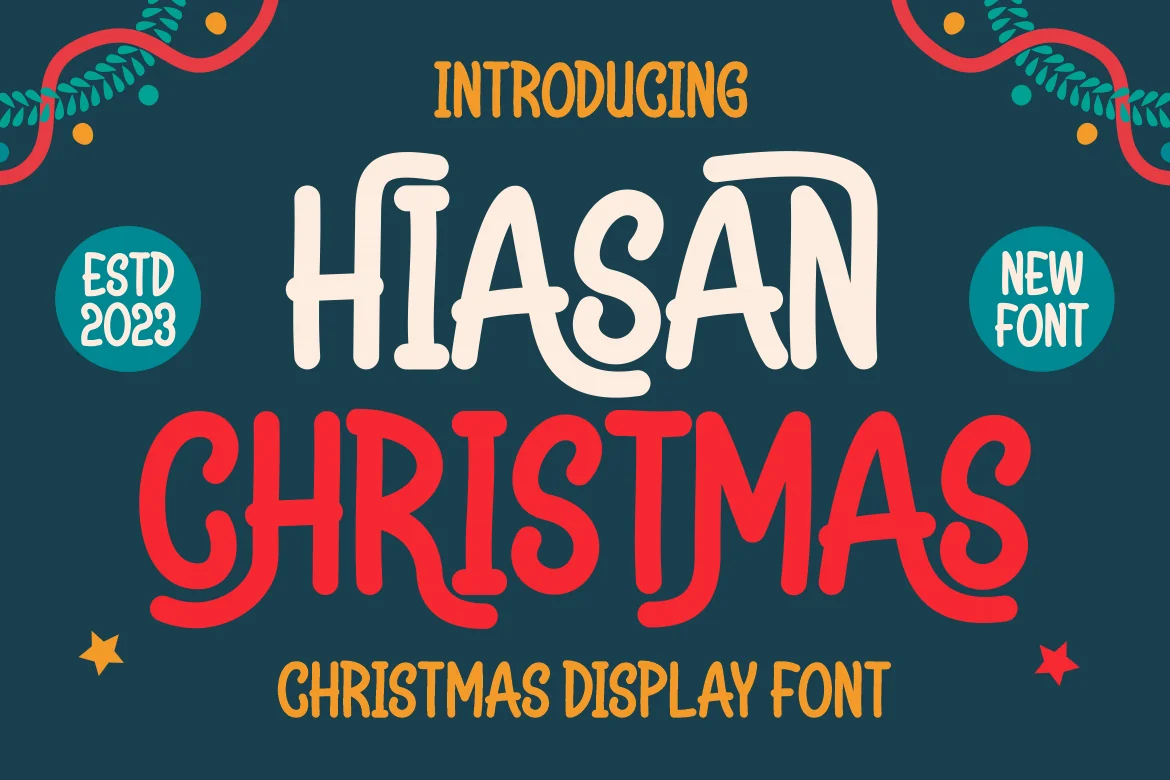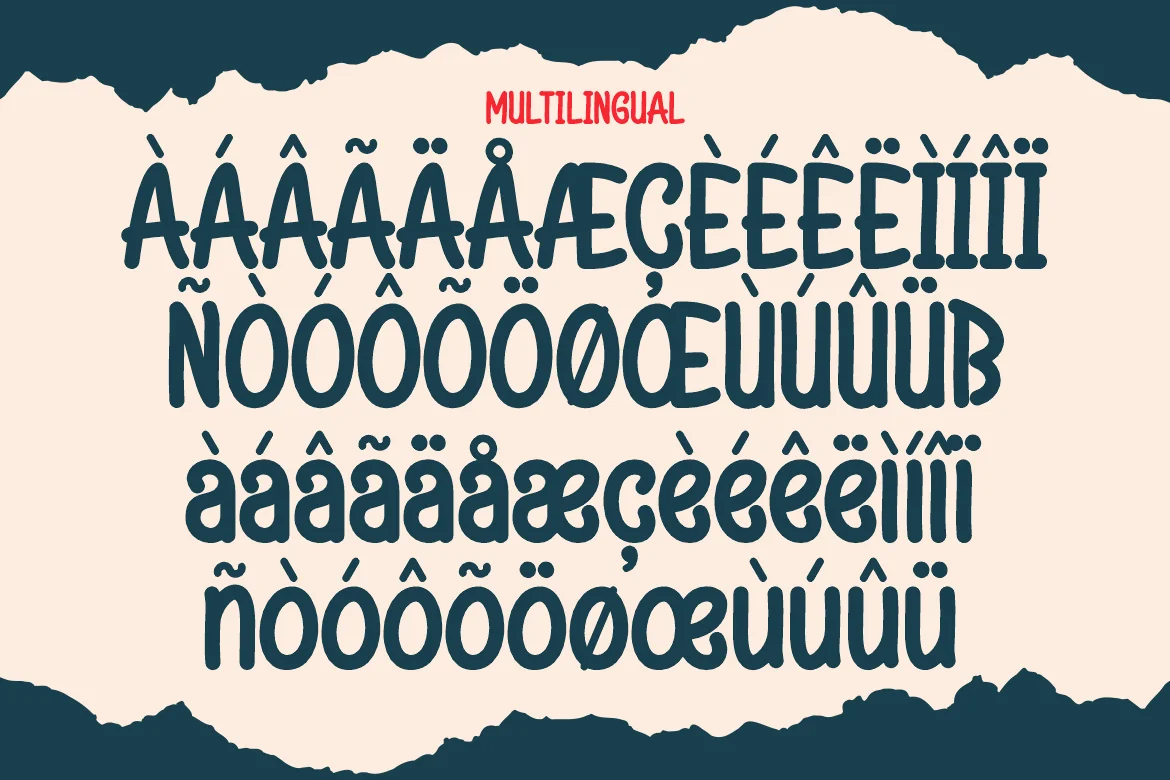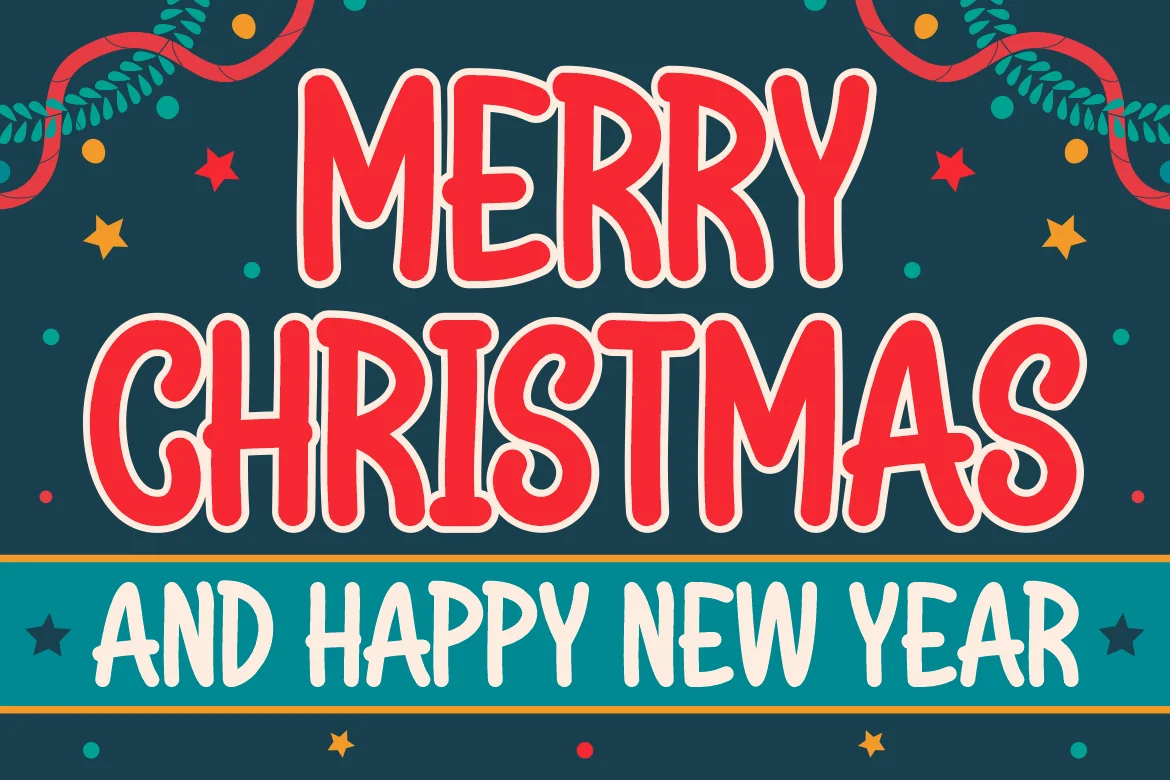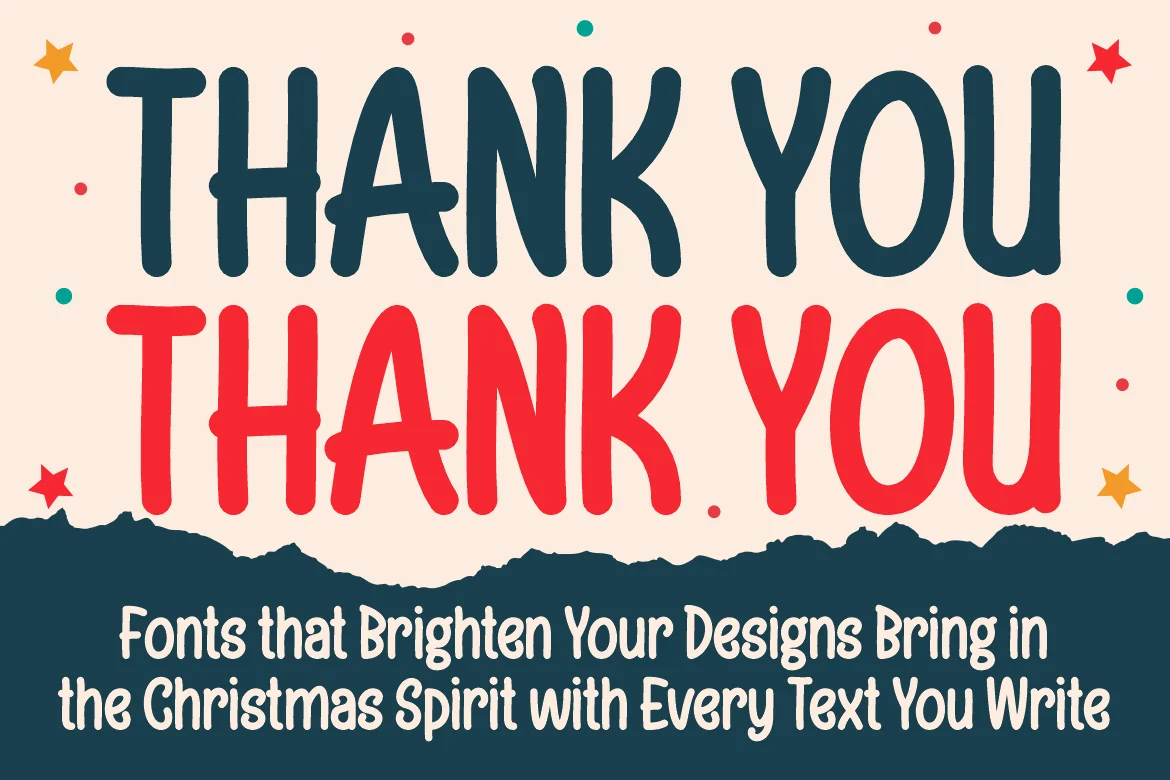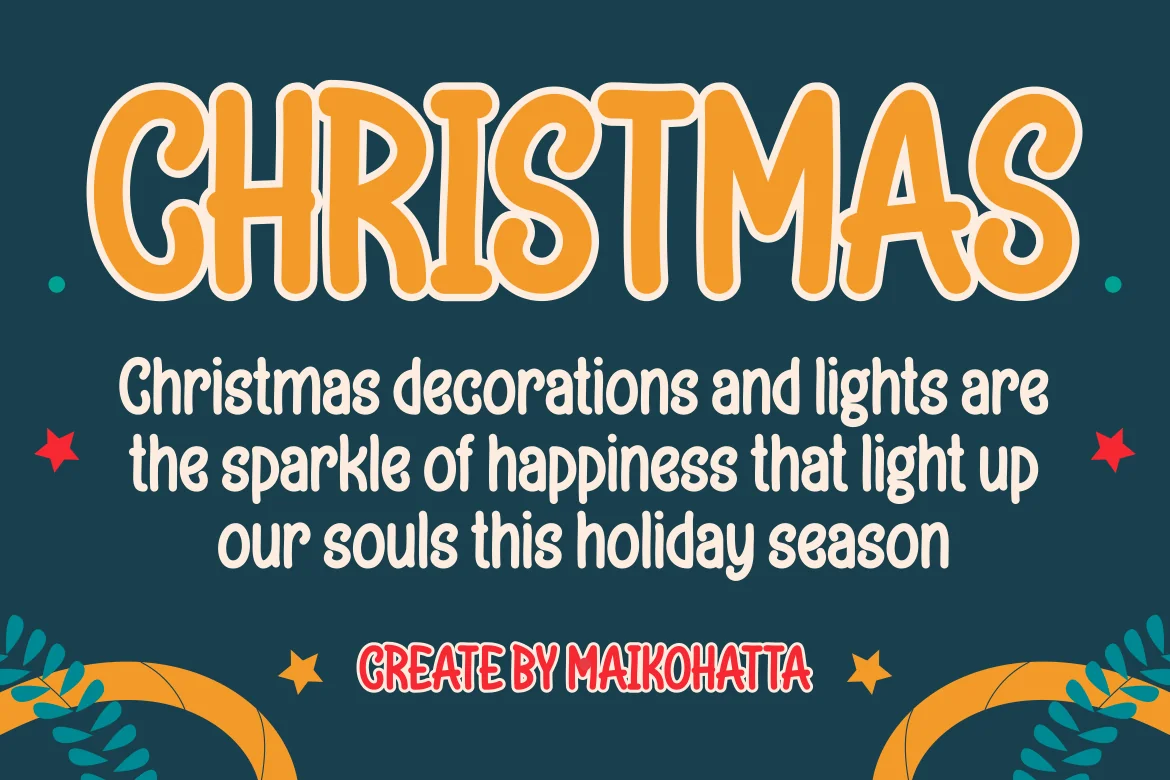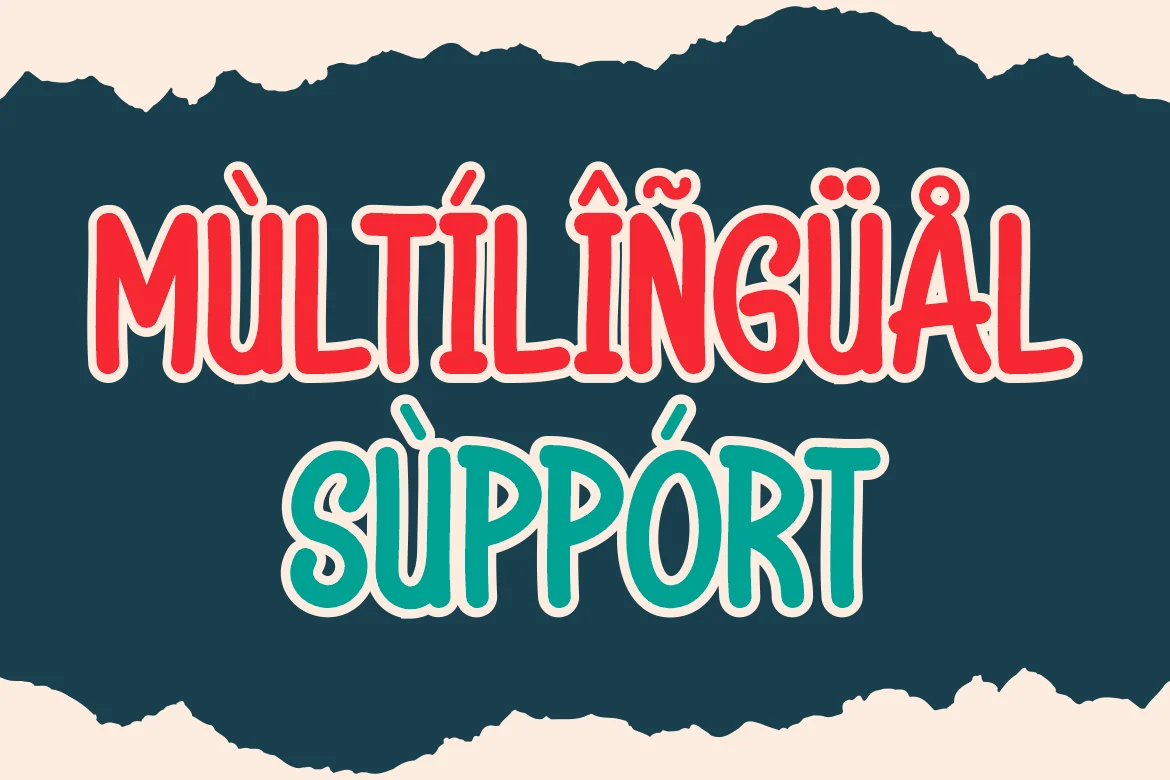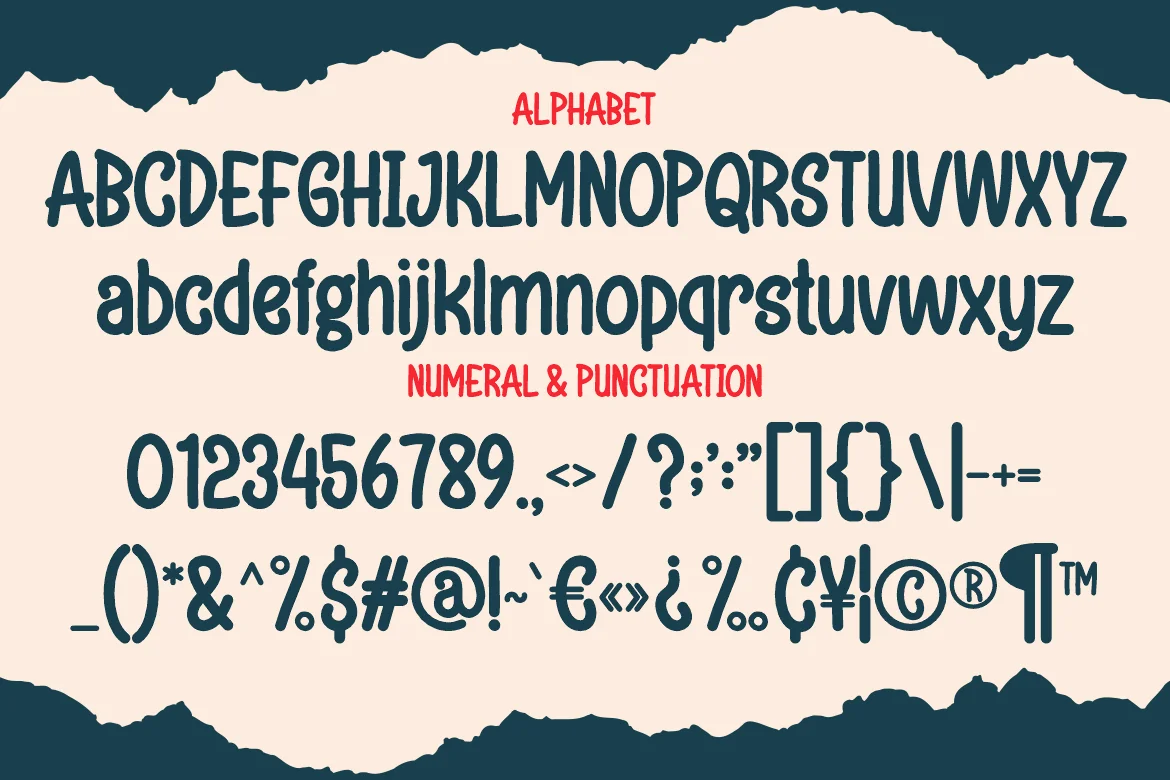
Hiasan Christmas – Christmas Display font
Introducing our new product Hiasan Christmas – Christmas Display font
This font is specifically designed to create a Christmas atmosphere and mood. This font can be used in various design contexts, including greeting cards, flyers, banners, and other decorations. With diverse characters ranging from uppercase to lowercase, this font provides flexibility to express creativity in every Christmas design project. With this font, every word becomes a part of the celebration, bringing the joy and warmth of Christmas into our writings. Embrace the holiday season with the magical touch of each letter that brings the Christmas cheer to every observer.